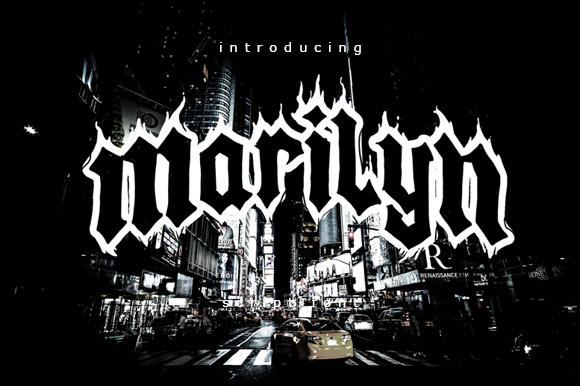
Introducing Marilyn Font, a captivating and versatile addition to your collection of fonts. Created by the talented brnk1314, Marilyn is a blackletter font that exudes elegance and charm. This new, casual script font offers a modern vision while also evoking a vintage feeling, making it perfect for a wide range of design projects.
With Marilyn, you have the opportunity to elevate your creative endeavors to new heights. This font is not just a simple addition to your arsenal, but a game-changer that will set your designs apart from the rest. The textured lines and multiple unique styles of Marilyn provide you with endless possibilities to create eye-catching and impactful visuals.
Imagine the possibilities when you harness the power of Marilyn Font. Whether you're designing advertising materials, packaging, or posters, this font will effortlessly enhance your creations. Its distinctive and handcrafted appearance adds a personal touch, making your designs feel authentic and captivating.
Marilyn Font is more than just a tool; it's a source of inspiration. Its intricate details and carefully crafted characters will ignite your creativity and breathe life into your projects. Each stroke tells a story, capturing the essence of your message and conveying it with style and grace.
But Marilyn is not just about aesthetics; it's about connecting with your audience on a deeper level. With its emotional appeal, this font elicits a sense of nostalgia, making it ideal for branding or designs that aim to evoke a sentimental response. Marilyn Font transcends the boundaries of mere typography and becomes a compelling visual language that speaks directly to the hearts of your audience.
Don't settle for ordinary when you can have extraordinary. Embrace the uniqueness of Marilyn Font and watch your designs come to life. Join the ranks of creative visionaries who have already discovered the power of this exceptional font. Whether you're a seasoned designer or just starting your creative journey, Marilyn is the missing piece that will take your work to the next level.